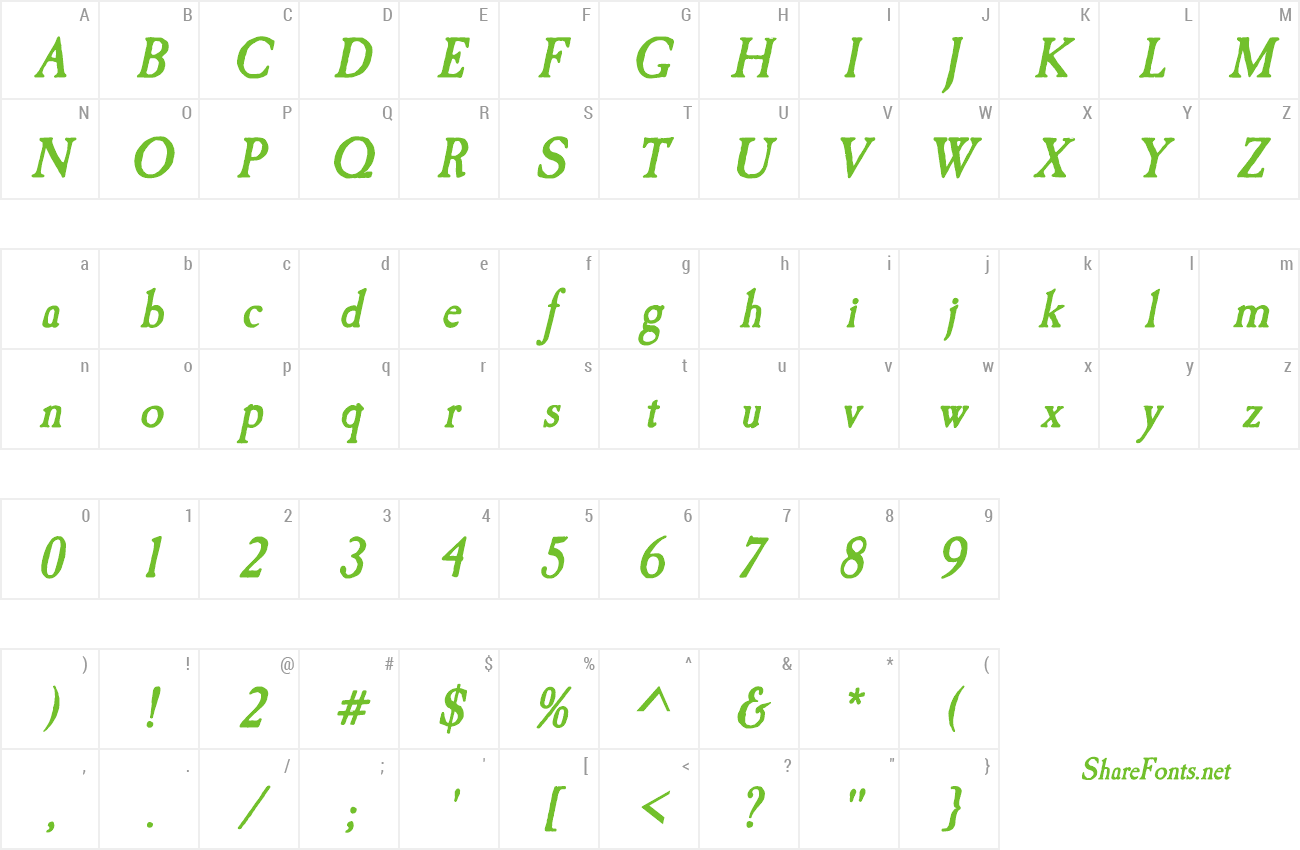
Caslon Antique Font
Caslon Antique Font - Web free download of caslon antique font family with 2 styles. Font preview use the text generator tool below to preview caslon. Web caslon antique is a decorative american typeface that was designed in 1894 by berne nadall. It was originally called fifteenth century, but was renamed caslon. Web caslon antique font free preview download :: Web all styles of caslon antique font caslon antique bold uncategorized 1800 downloads download caslon antique bolditalic uncategorized 14 downloads download. Web caslon antique font. Introducing caslon antique serif font is a decorative american typeface that was designed in 1894 by berne nadall.
Web caslon antique font free preview download :: It was originally called fifteenth century, but was renamed caslon. Web caslon antique is a decorative american typeface that was designed in 1894 by berne nadall. Web free download of caslon antique font family with 2 styles. Web caslon antique font. Font preview use the text generator tool below to preview caslon. Introducing caslon antique serif font is a decorative american typeface that was designed in 1894 by berne nadall. Web all styles of caslon antique font caslon antique bold uncategorized 1800 downloads download caslon antique bolditalic uncategorized 14 downloads download.
Web caslon antique font free preview download :: Font preview use the text generator tool below to preview caslon. Web caslon antique is a decorative american typeface that was designed in 1894 by berne nadall. Web caslon antique font. Web all styles of caslon antique font caslon antique bold uncategorized 1800 downloads download caslon antique bolditalic uncategorized 14 downloads download. Web free download of caslon antique font family with 2 styles. It was originally called fifteenth century, but was renamed caslon. Introducing caslon antique serif font is a decorative american typeface that was designed in 1894 by berne nadall.
Font preview use the text generator tool below to preview caslon. Web caslon antique font. Web caslon antique font free preview download :: Web caslon antique is a decorative american typeface that was designed in 1894 by berne nadall. Web all styles of caslon antique font caslon antique bold uncategorized 1800 downloads download caslon antique bolditalic uncategorized 14 downloads download.
Introducing caslon antique serif font is a decorative american typeface that was designed in 1894 by berne nadall. Web caslon antique is a decorative american typeface that was designed in 1894 by berne nadall. Web all styles of caslon antique font caslon antique bold uncategorized 1800 downloads download caslon antique bolditalic uncategorized 14 downloads download. Font preview use the text.
Web caslon antique font. Web caslon antique font free preview download :: Web all styles of caslon antique font caslon antique bold uncategorized 1800 downloads download caslon antique bolditalic uncategorized 14 downloads download. It was originally called fifteenth century, but was renamed caslon. Font preview use the text generator tool below to preview caslon.
Font preview use the text generator tool below to preview caslon. Web caslon antique is a decorative american typeface that was designed in 1894 by berne nadall. Web all styles of caslon antique font caslon antique bold uncategorized 1800 downloads download caslon antique bolditalic uncategorized 14 downloads download. Web caslon antique font. Web free download of caslon antique font family.
Introducing caslon antique serif font is a decorative american typeface that was designed in 1894 by berne nadall. Web all styles of caslon antique font caslon antique bold uncategorized 1800 downloads download caslon antique bolditalic uncategorized 14 downloads download. Web caslon antique font free preview download :: Web caslon antique font. Web caslon antique is a decorative american typeface that.
Web caslon antique is a decorative american typeface that was designed in 1894 by berne nadall. Web caslon antique font. It was originally called fifteenth century, but was renamed caslon. Web caslon antique font free preview download :: Web all styles of caslon antique font caslon antique bold uncategorized 1800 downloads download caslon antique bolditalic uncategorized 14 downloads download.
Web caslon antique font free preview download :: Web free download of caslon antique font family with 2 styles. Introducing caslon antique serif font is a decorative american typeface that was designed in 1894 by berne nadall. Font preview use the text generator tool below to preview caslon. Web caslon antique is a decorative american typeface that was designed in.
It was originally called fifteenth century, but was renamed caslon. Web caslon antique font free preview download :: Web caslon antique is a decorative american typeface that was designed in 1894 by berne nadall. Introducing caslon antique serif font is a decorative american typeface that was designed in 1894 by berne nadall. Web all styles of caslon antique font caslon.
Web caslon antique font free preview download :: Web free download of caslon antique font family with 2 styles. Web caslon antique font. Web all styles of caslon antique font caslon antique bold uncategorized 1800 downloads download caslon antique bolditalic uncategorized 14 downloads download.
Web Caslon Antique Is A Decorative American Typeface That Was Designed In 1894 By Berne Nadall.
Font preview use the text generator tool below to preview caslon. It was originally called fifteenth century, but was renamed caslon.